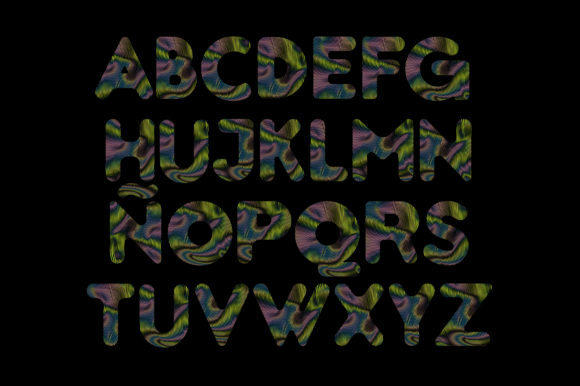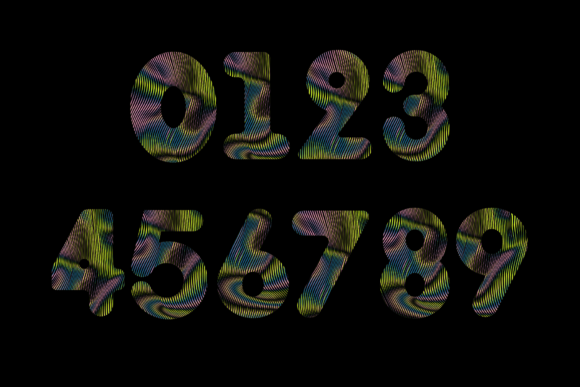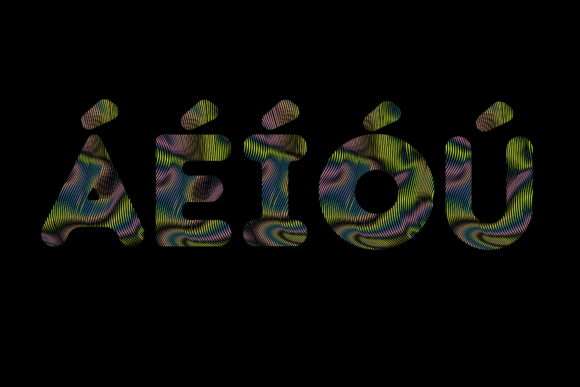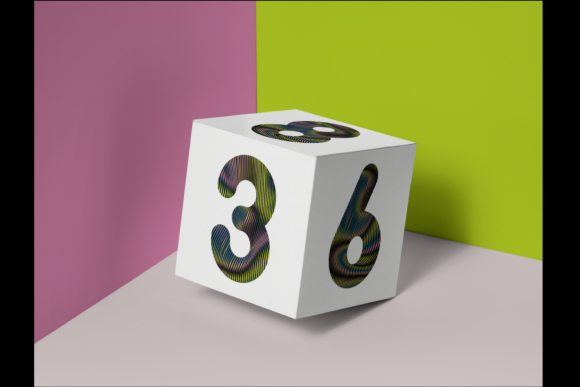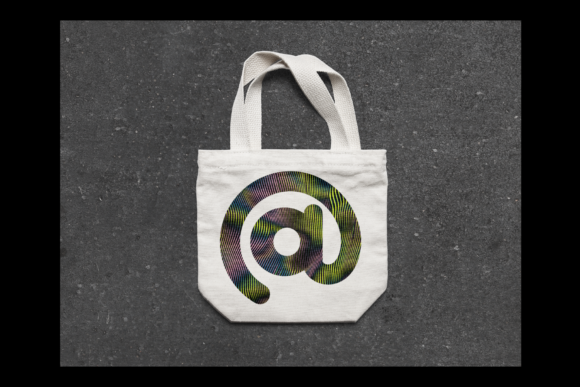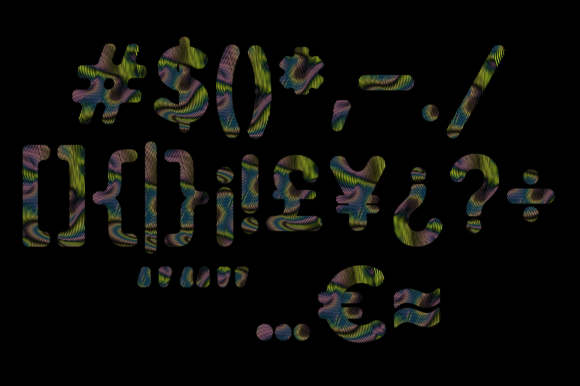
Unleash Your Creativity with Dex Font
Remember the rush of excitement when you finally find that perfect font to bring your design to life? It’s a moment that every designer knows well. You’re brainstorming ideas for a poster or flyer, and suddenly, everything clicks into place. The text, the images, the colors – it all comes together in a beautiful harmony. This is where Dex Font comes in – a cool and uniquely designed display font that will elevate your designs to the next level.
Dex Font is more than just a font; it’s a powerful tool for designers who want to make a statement. Its versatility and modern aesthetic make it perfect for any project, from advertising and marketing to art and graphics. With Dex Font, you’ll be able to add a touch of sophistication and elegance to your designs, setting you apart from the rest.
Dex Font Key Features
- Font Family: Dex Font is a sans-serif font family designed for digital use.
- Font Sizes: Designed to work well at various sizes, including small text sizes (8-10pt) and large display sizes (24-48pt).
- Resolution: Optimized for high-resolution displays (Retina, 4K, and beyond) with clear readability at pixel densities up to 600 DPI.
- Unique Characteristics: Dex Font features a clean, modern design with a subtle x-height and a distinctive letterform structure, making it suitable for body text, headings, and display use.
- Character Set: Supports a wide range of languages, including Latin, Cyrillic, and Greek scripts, with over 1000 glyphs per font weight.
Dex Font Review
Dex Font is a modern sans-serif typeface that caught my attention with its sleek design. Here are some of the things I like about it:
- ✨ Its clean lines and geometric shapes make it perfect for digital interfaces, such as web applications and mobile apps.
- ✨ Dex Font is highly legible, even at small font sizes, making it a great choice for body text.
- ✨ The font family includes a wide range of weights and styles, from light to bold, which gives designers a lot of flexibility.
- ⚠️ The font may not be the best choice for print materials, as it can appear somewhat bland and lacking in personality.
- ⚠️ The font family is not as extensive as some other popular sans-serif fonts, which may limit its use in certain contexts.
Overall, I think Dex Font is a solid choice for digital design projects, but it may not be the best fit for every project. With its clean design and versatility, it’s definitely worth considering, but it’s essential to weigh its limitations against your specific design needs.
Tips for Getting the Most Out of Dex Font
For optimal results, use Dex Font in combination with bold or italic styles to create visual hierarchy and emphasis.
Experiment with different font sizes and line heights to achieve a balanced design.
Dex Font is suitable for a variety of applications, including:
- Digital signage and display advertising.
- Web and mobile app design.
Alternatives to Dex Font
Montserrat is a modern sans-serif font designed for digital use. It is clean, minimal, and highly legible. Use Montserrat for body text, headings, and titles where you need a clear and modern look. Compared to Dex Font, Montserrat has a more geometric and industrial feel, making it perfect for tech-related projects, urban designs, and modern brands.
Abril Fatface is a beautiful and elegant serif font ideal for titles, headings, and quotes. It is a versatile font that works well for both modern and traditional designs. Use Abril Fatface when you need to add a touch of sophistication and elegance to your design. Compared to Dex Font, Abril Fatface has a more refined and luxurious feel, making it perfect for high-end brands, luxury products, and classic designs.
Playfair Display is a luxurious and elegant serif font designed for titles, headings, and quotes. It is a highly decorative font that adds a touch of sophistication and refinement to any design. Use Playfair Display when you need to add a sense of luxury and elegance to your design. Compared to Dex Font, Playfair Display has a more ornate and luxurious feel, making it perfect for high-end brands, luxury products, and classic designs.
Can I customize Dex Font further?
Yes, Dex Font is highly customizable, and you can adjust its characteristics using font tools or CSS. You can also use font editors like FontForge or Glyphs to modify the font’s design and create custom variations. However, please note that modifying the font may affect its functionality and compatibility.